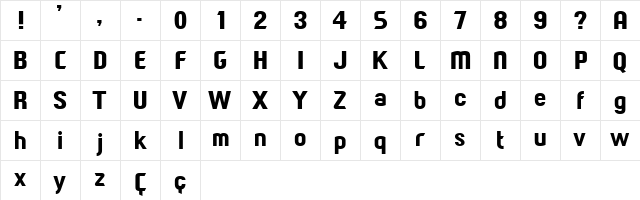
Paragon Black
| Foundry | Tino Mendes |
| Designer | Tino Mendes |
Design Context for Paragon Typeface
Paragon offers clean, dependable letterforms without strong stylistic allegiance, making it a practical choice for designers who need flexibility.